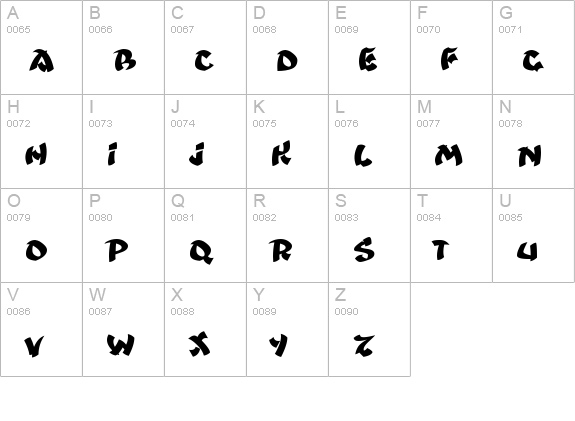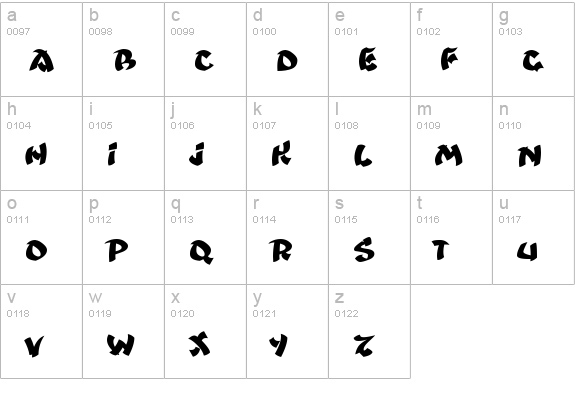
Introducing Ninja Strike font, a dynamic and sleek typeface that exudes power and precision. This bold and modern font is perfect for adding an edgy touch to your designs, whether for branding, headlines, or posters. With its sharp angles and distinct style, Ninja Strike font captures the essence of stealth and agility.